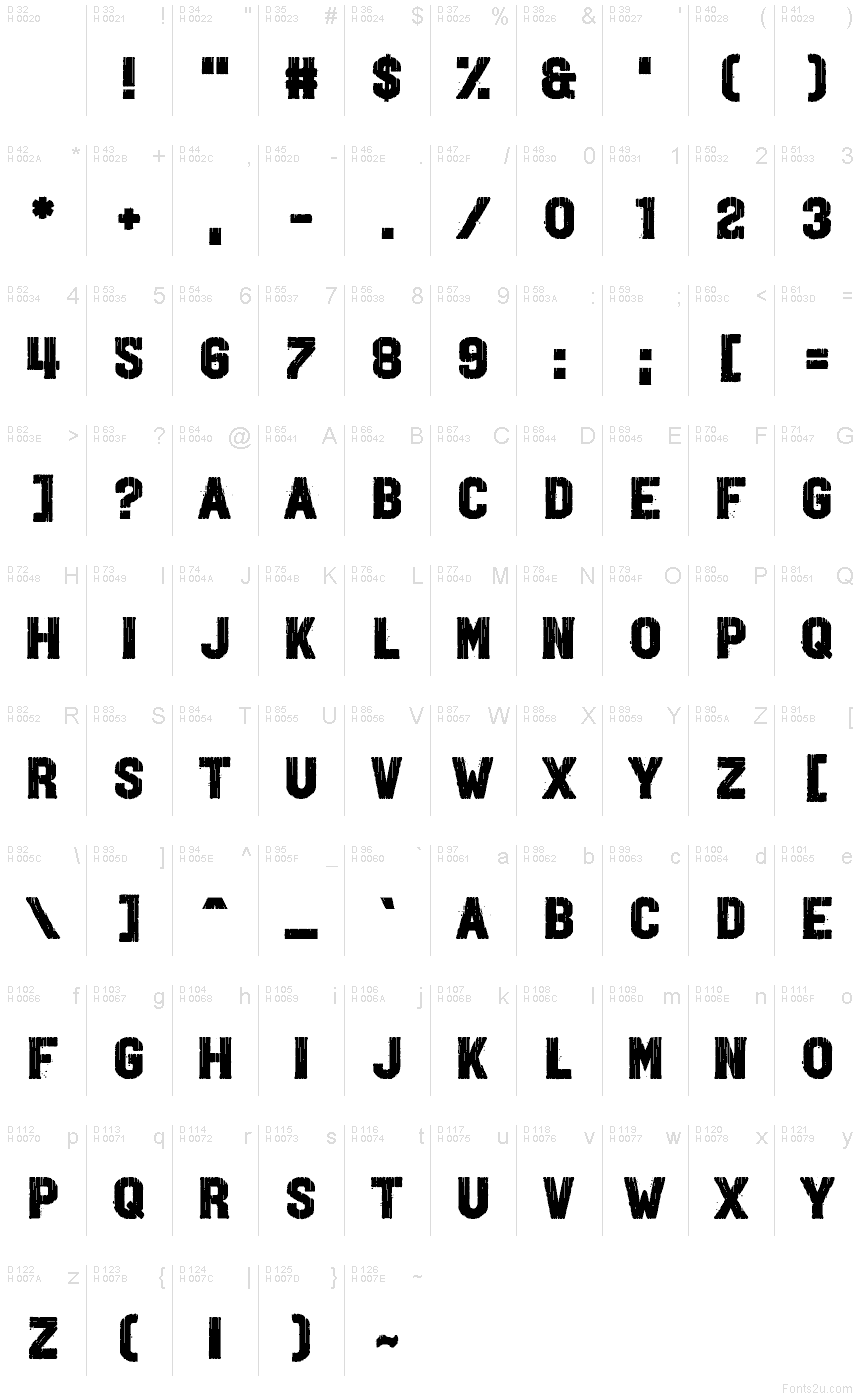
Swansong
Swansong font by Chequered Ink is a bold distorted display font. It suggests a sense of nostalgia while carrying a retro influence, a grunge texture, and an industrial feel. It has a strong visual impact with its distressed appearance and conveys ruggedness. Enjoy having this rugged yet stylish construction elements in your design projects.
The free display typeface is perfect for CD covers, book covers, posters, ads, video games titles and interfaces, headlines on magazines or newspapers either printed or online versions. You’ll also love it in succulent product labels or packaging ideas as well as over clothing items like T-shirts amongst other items.